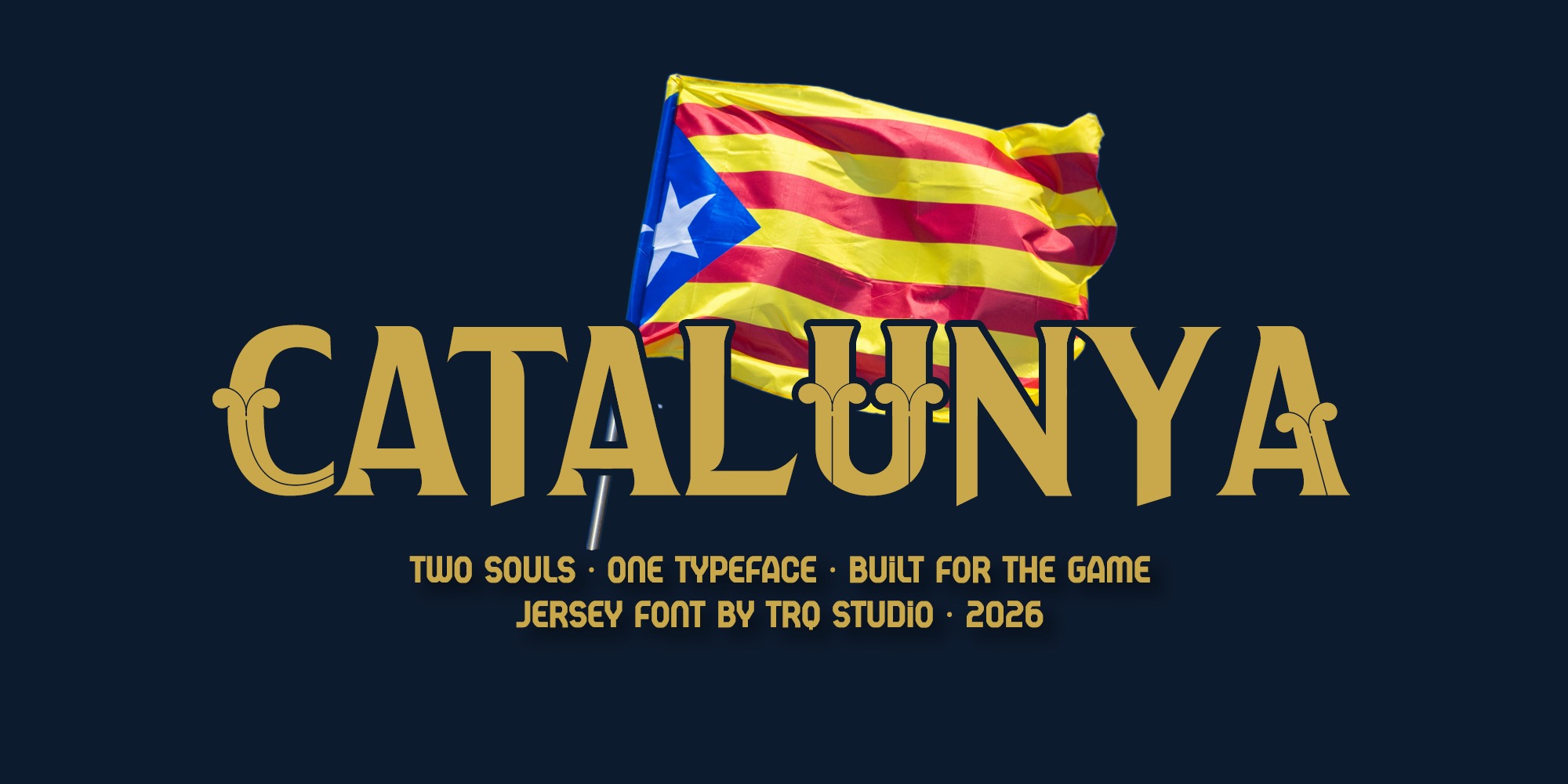
Catalunya Font
Catalunya Font is a versatile football-inspired typeface featuring multiple stylistic variations that blend classic elegance with bold athletic energy. From sharp serif details to decorative ornamental characters and modern sporty forms, the font offers a unique visual identity perfect for jersey designs, football branding, esports graphics, posters, and creative sports projects. Its distinctive letterforms capture both tradition and modern competition, giving designers the flexibility to create dynamic and premium-looking typography for a wide range of game-inspired visuals.